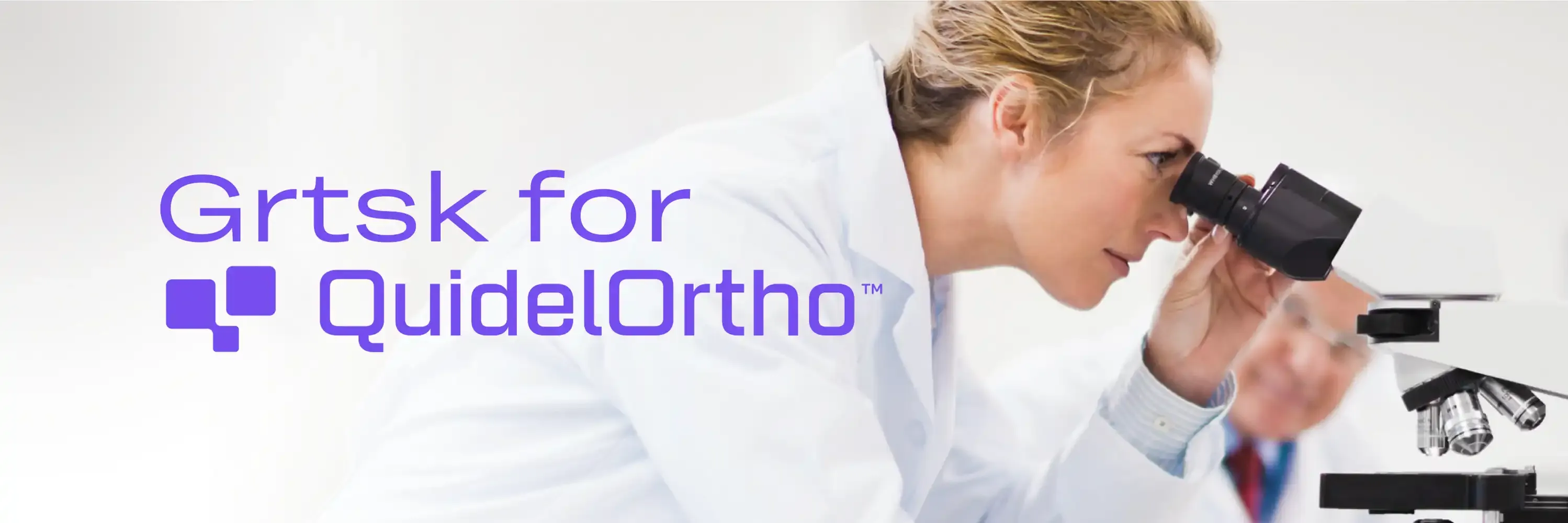
Grtsk for QuidelOrtho
Grtsk: The Perfect Typeface for QuidelOrtho's Rebranding
When QuidelOrtho embarked on their rebranding journey, they turned to the expertise of Siegel+Gale to create a new visual identity that would embody their innovation, precision, and commitment to healthcare excellence. Central to this rebranding was the choice of a versatile and contemporary typeface—Grtsk.
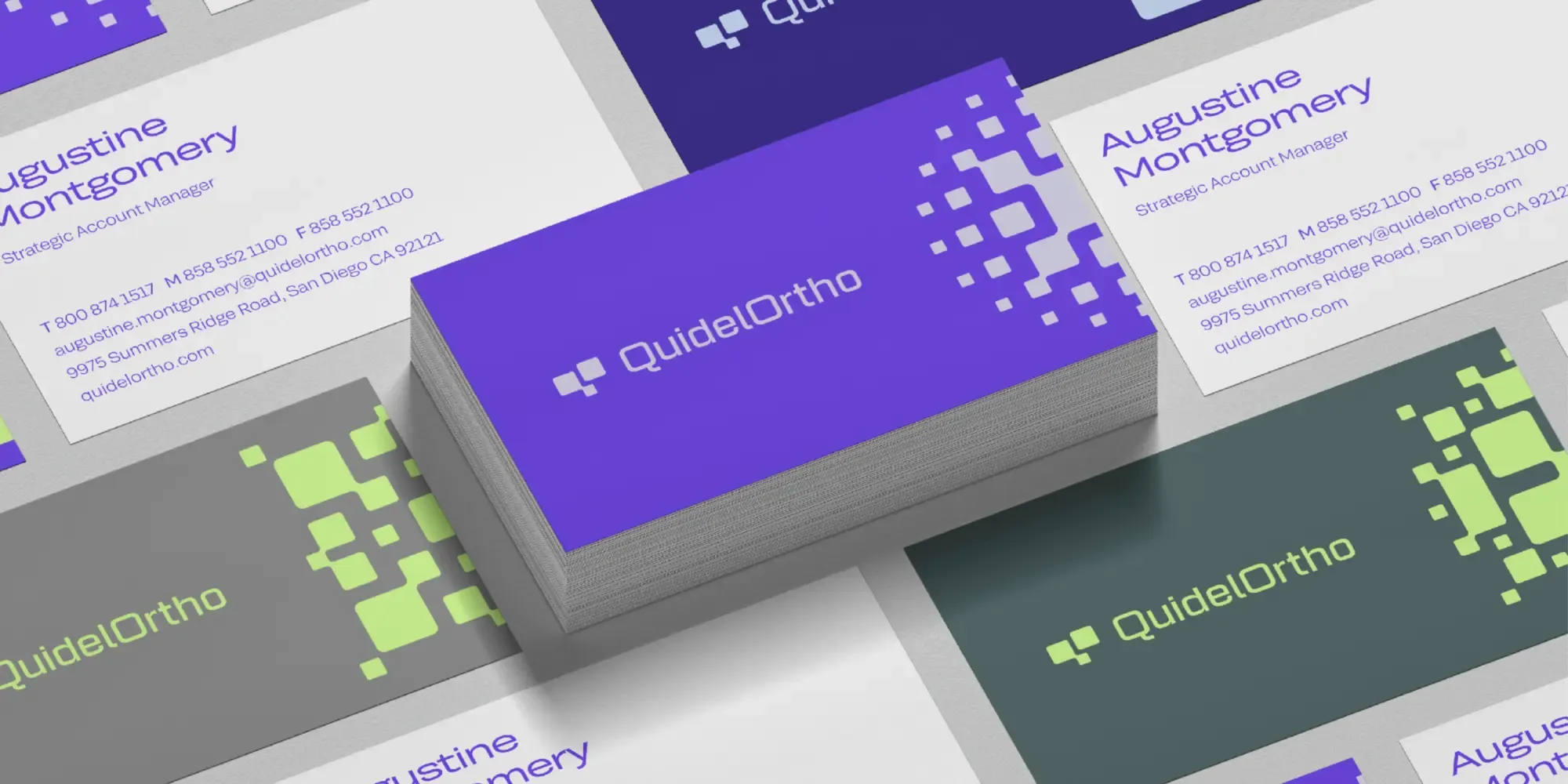
Why Grtsk Fits QuidelOrtho
Grtsk’s design characteristics make it particularly well-suited for QuidelOrtho’s rebranding:
Modern and Clean Aesthetic: The sans-serif design of Grtsk conveys a sense of modernity and professionalism that aligns with QuidelOrtho’s cutting-edge diagnostic solutions.
Versatility: Grtsk’s wide range of weights and styles ensures it can be used effectively across various mediums and contexts, from bold headlines to detailed body text.
Legibility: The font’s clarity and readability are crucial in healthcare, where clear communication can make a significant difference. Grtsk’s design ensures that all text, whether in print or on screen, is easy to read and understand.
Consistency: By using Grtsk across all touchpoints, QuidelOrtho achieves a consistent and cohesive brand identity, reinforcing their commitment to quality and precision.
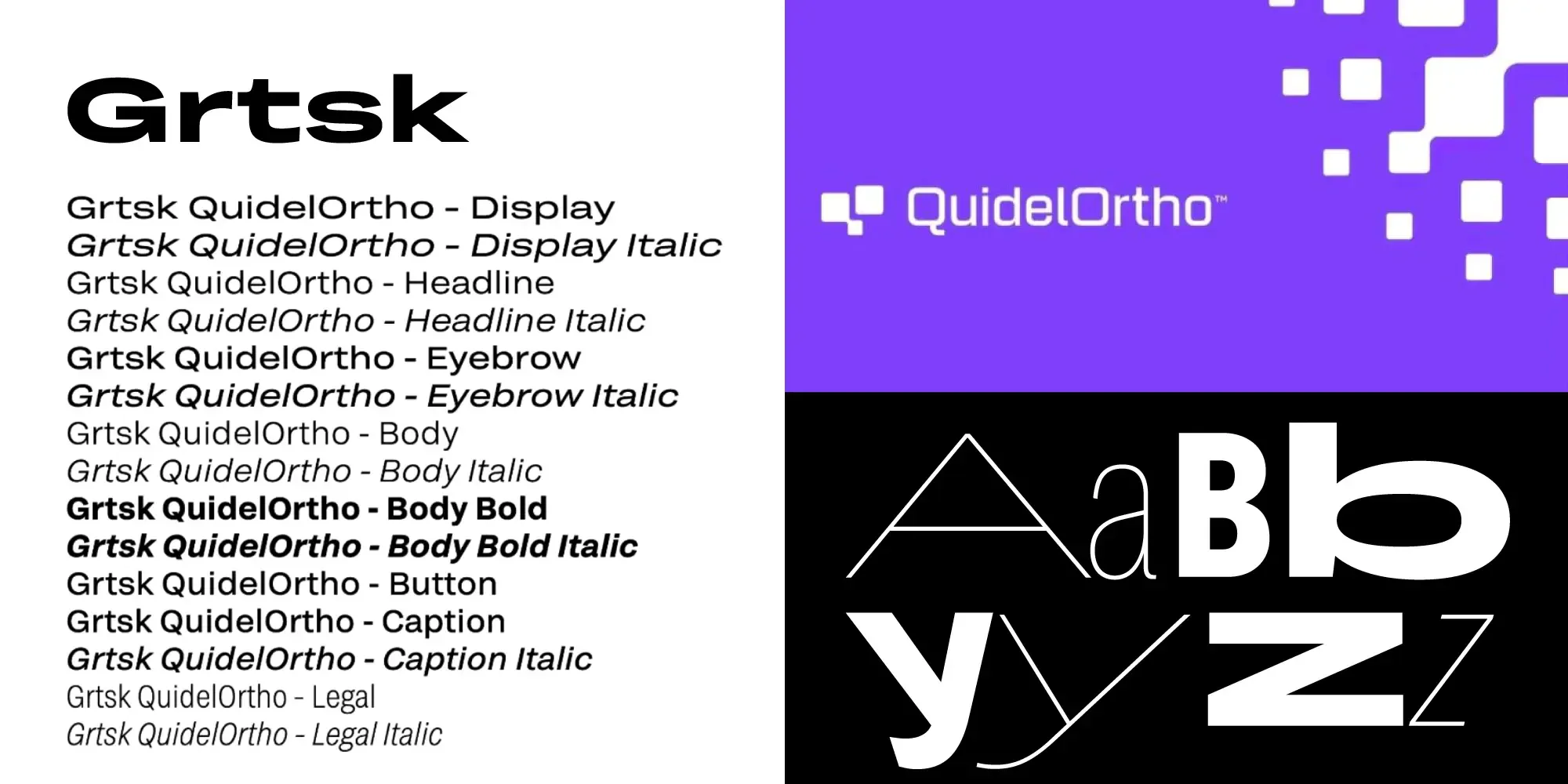
Grtsk in Action Across Various Media
The Grtsk font has been seamlessly integrated across a wide array of QuidelOrtho’s brand assets, ensuring a cohesive and unified visual experience. The font is prominently featured in:
Corporate Website: The Grtsk typeface is used extensively on QuidelOrtho’s website, providing a clean and modern look that enhances readability and user experience.
Marketing Materials: From brochures and flyers to advertisements, Grtsk brings a professional and sophisticated touch to all printed and digital marketing materials.
Product Packaging: The packaging for QuidelOrtho’s diagnostic solutions and products now features Grtsk, which helps convey clarity and trustworthiness to consumers.
Internal Communications: Employee handbooks, internal newsletters, and corporate presentations benefit from the consistent use of Grtsk, reinforcing the brand’s identity internally.
Signage and Displays: Grtsk is also used in environmental graphics, including office signage and trade show displays, creating a strong and recognizable brand presence.
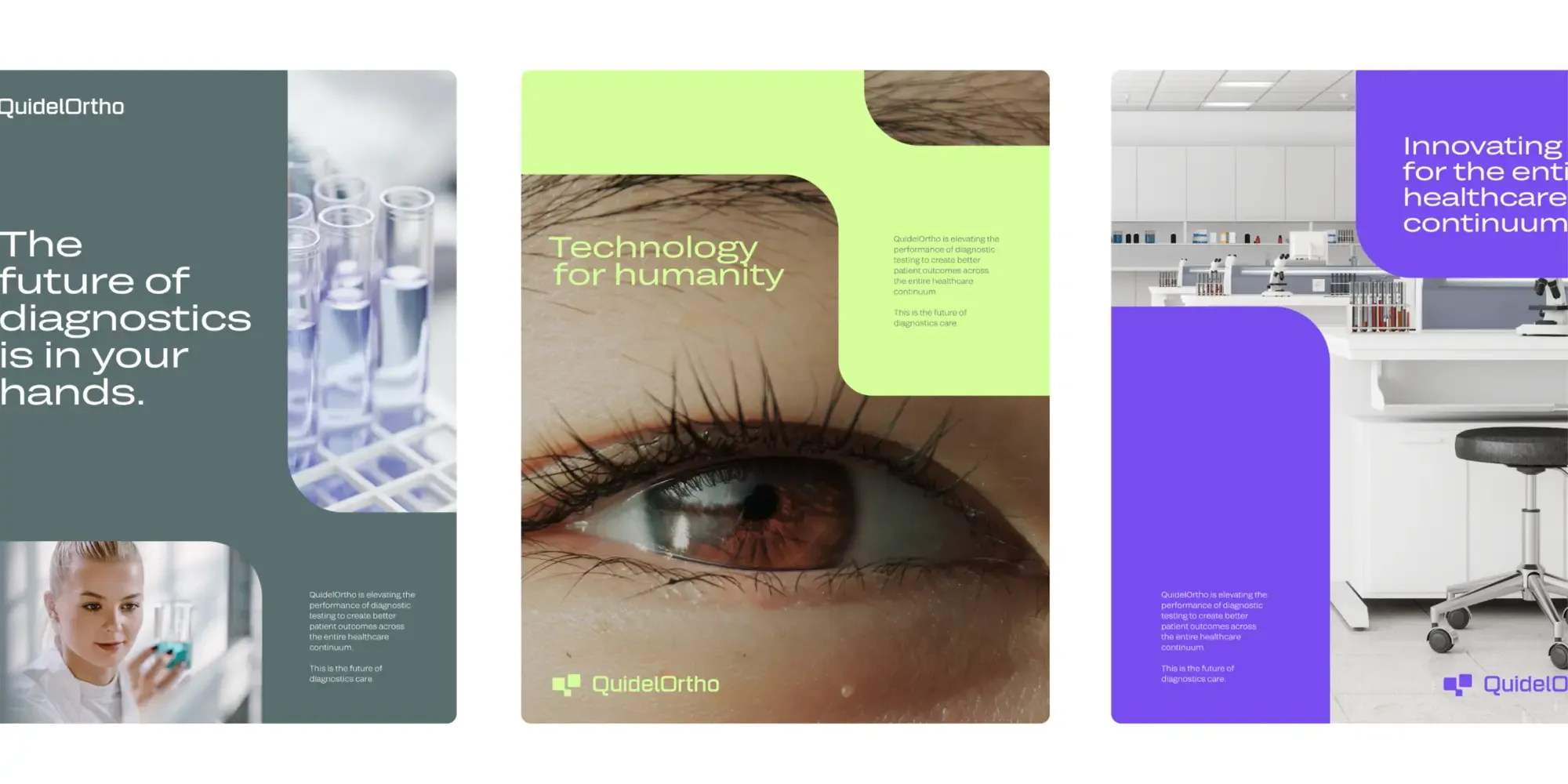
Tailored for Precision
To further support the design process, the font names within the Grtsk family were fine-tuned, enabling the design team at Siegel+Gale to effortlessly select the appropriate weight for each application. This level of customization ensures that every element of QuidelOrtho’s rebranding is meticulously crafted and consistently executed.
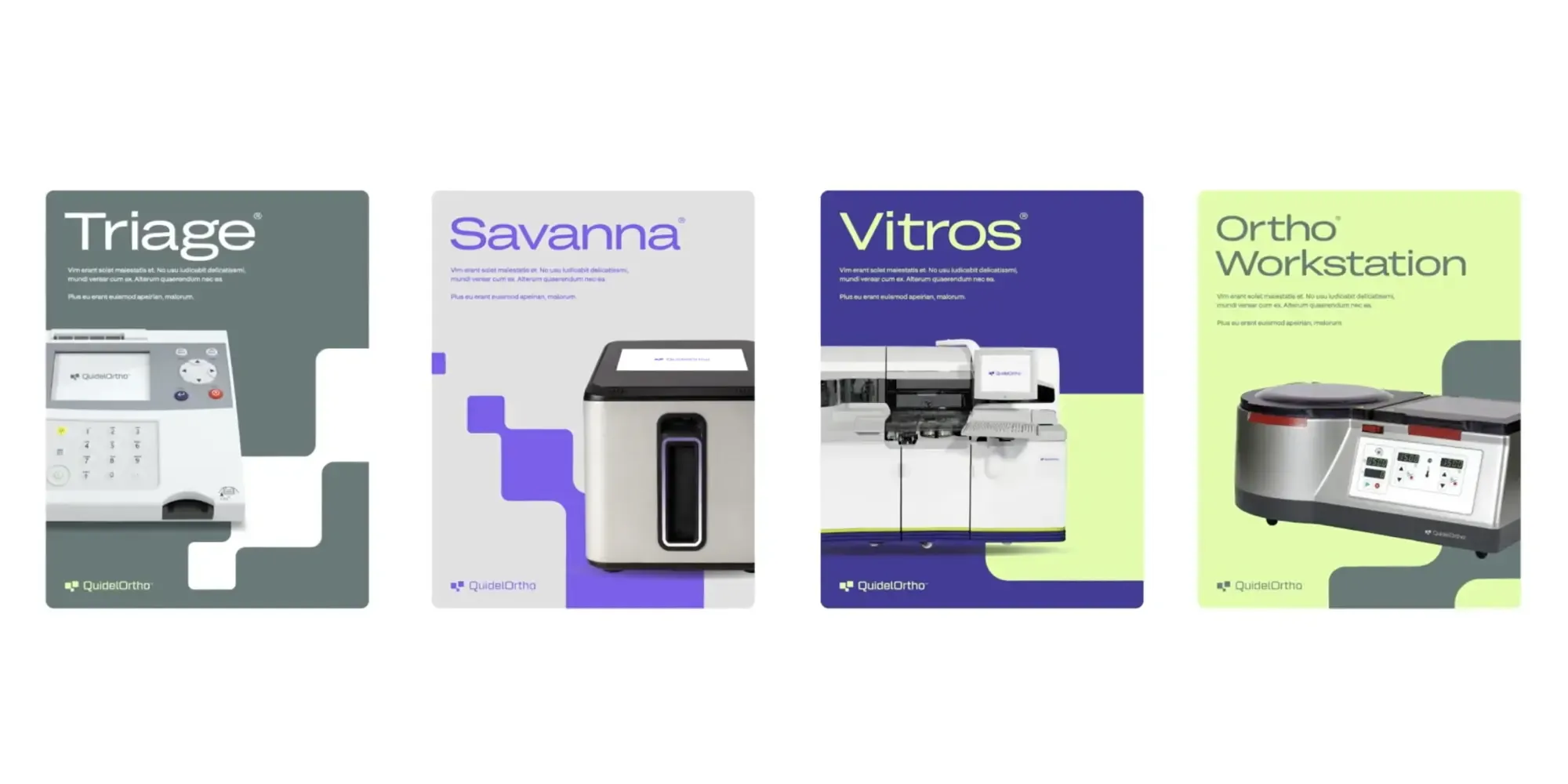
The Grtsk typeface has played a pivotal role in QuidelOrtho’s rebranding, providing a modern, versatile, and legible solution that enhances their visual identity. Used across the corporate website, marketing materials, product packaging, internal communications, and signage, Grtsk ensures consistency, impactfullness, and professionalism. The font’s customization for precise application underscores its integral role in the successful and consistent rebranding effort led by Siegel+Gale, ultimately reinforcing QuidelOrtho’s position as a leader in the healthcare industry.